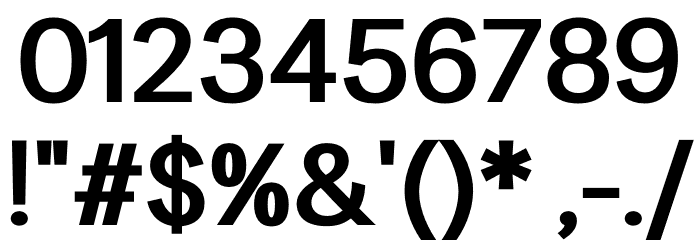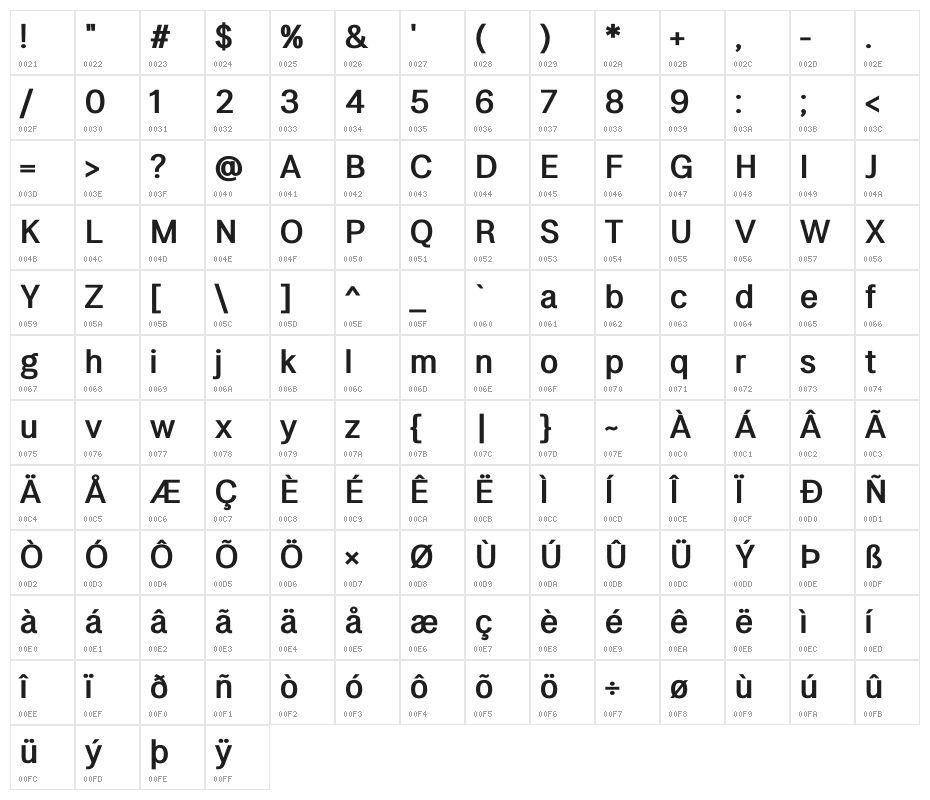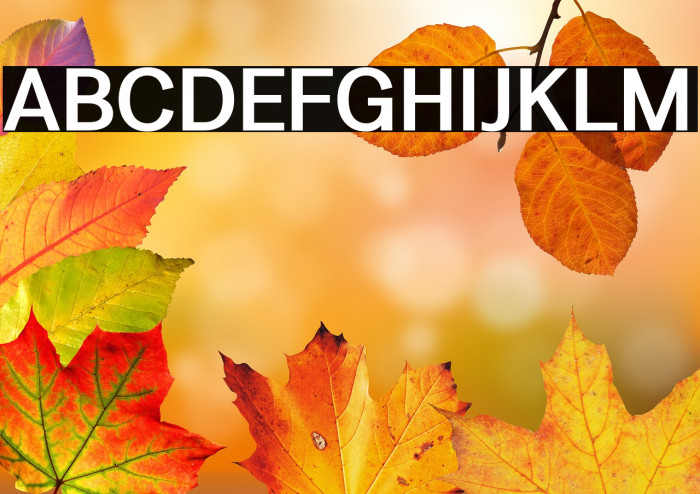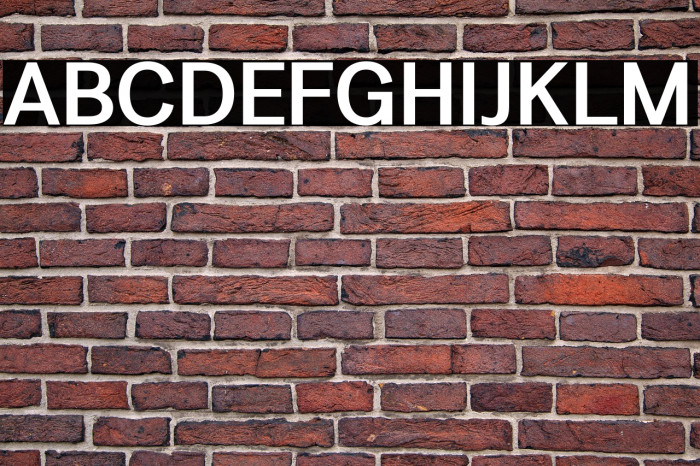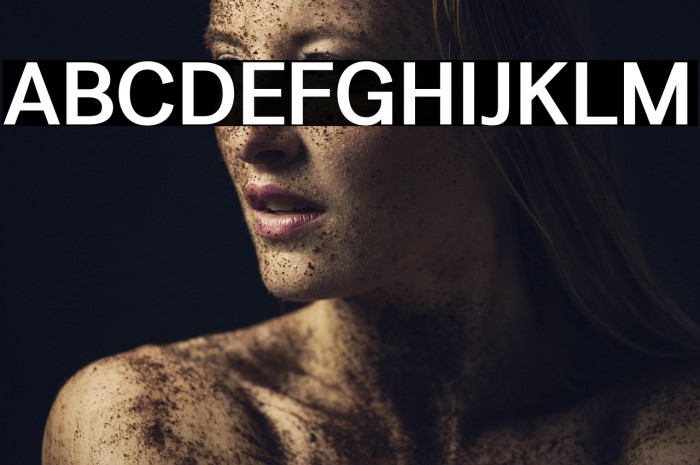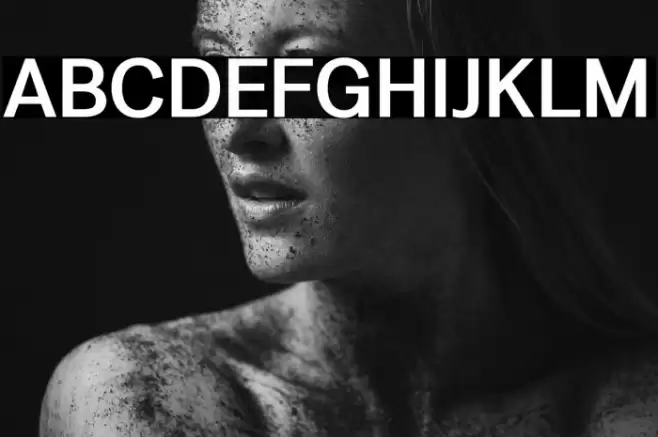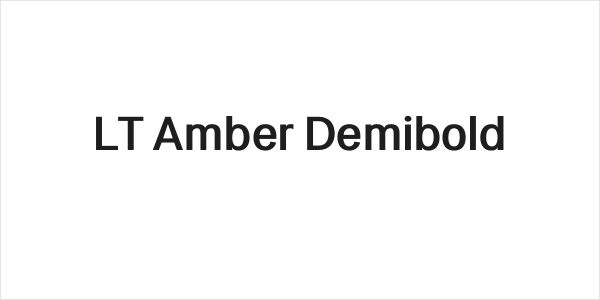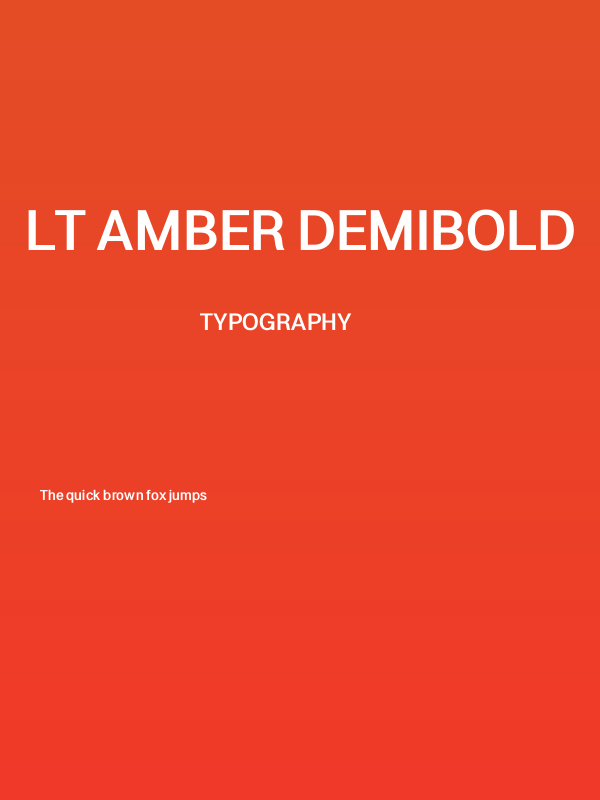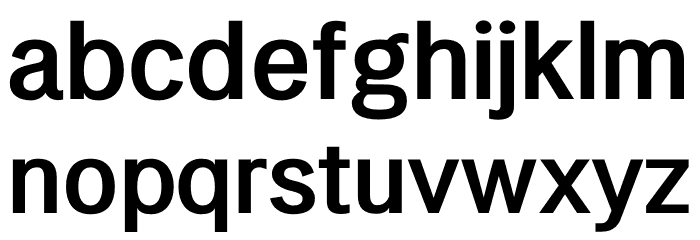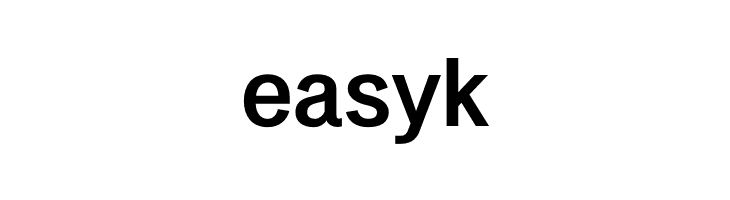
LT Amber Demibold Font
LT Amber Demibold Description
This typeface presents a clean and modern aesthetic with a focus on clarity and readability. The characters are well-defined with a consistent stroke width, making it highly legible across various sizes. The uppercase letters are bold and assertive, while the lowercase letters maintain a balanced and approachable appearance. Numbers are clear and distinct, ensuring easy recognition. The special characters are designed to complement the overall style, providing versatility for different design needs. This font is ideal for projects that require a professional and contemporary look.
| Proposed Projects | Ideal for corporate branding, web design, advertising, and editorial layouts. |